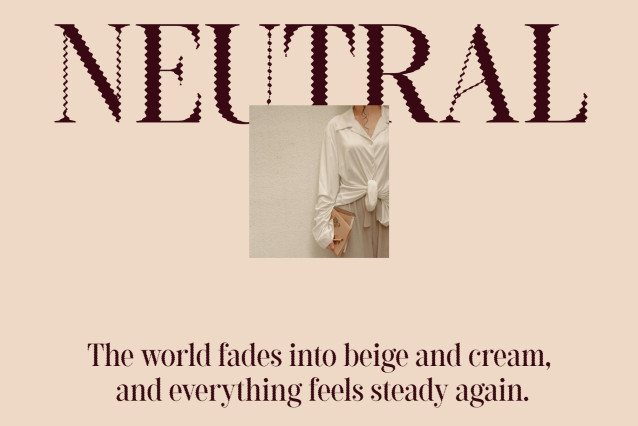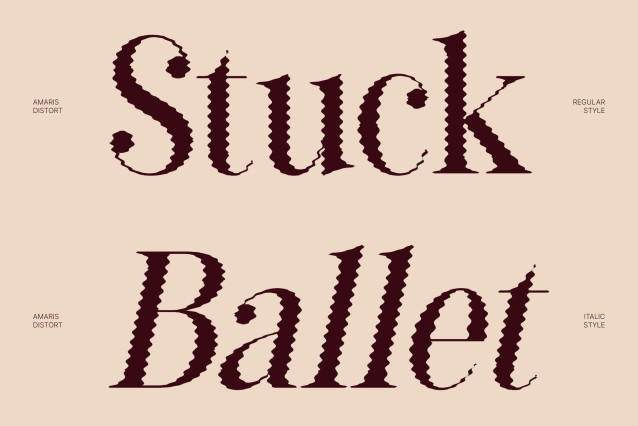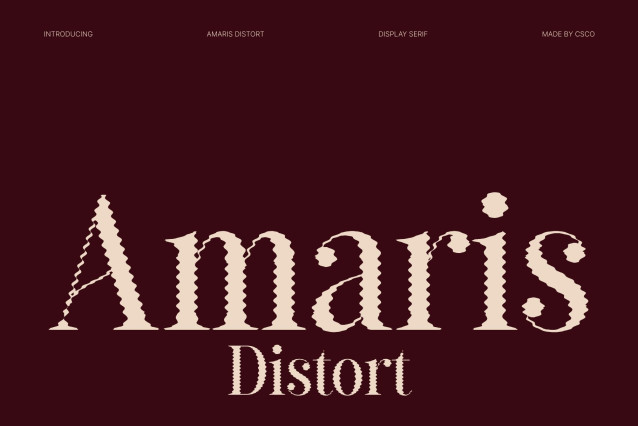
Amaris Distort – Nostalgic Serif Font: Where Vintage Elegance Meets Fluid Distortion
Classic High-Contrast Forms with Timeless Sophistication
This is a nostalgic serif font designed with traditional letterforms and elegant high contrast between thick and thin strokes. Its refined serif structure evokes a sense of sophistication, heritage, and timeless beauty while maintaining a stylish contemporary charm. Every character feels graceful and expressive, making the font perfect for artistic projects that seek both vintage elegance and modern creativity.
Distort Effect with Gentle Organic Motion
This font features fluid organic contours along the letter edges that create a subtle melting effect. This expressive detailing introduces movement, softness, and artistic visual depth while preserving the font’s refined serif foundation. The result is a dynamic and immersive appearance that feels nostalgic, trendy, and visually captivating.